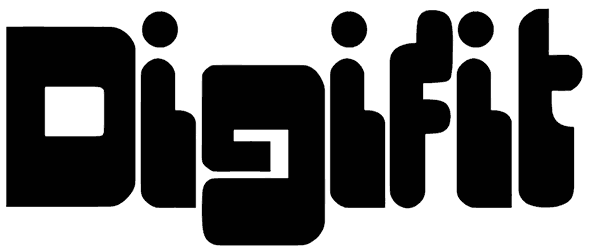
Digifit Font
If you are in the middle of designing billboards, gift cards, logos, product packaging, or posters that require a futuristic touch, we offer you to make charming outcomes by utilizing a techno font such as Digifit.
Its characters have a geometrical and jaunty style, thus bewildering the customers while their eyes go up and down following its polygonal flow. With the help of this masterpiece, you can share a sense of momentum, tenderness, and vivacity with your audience.